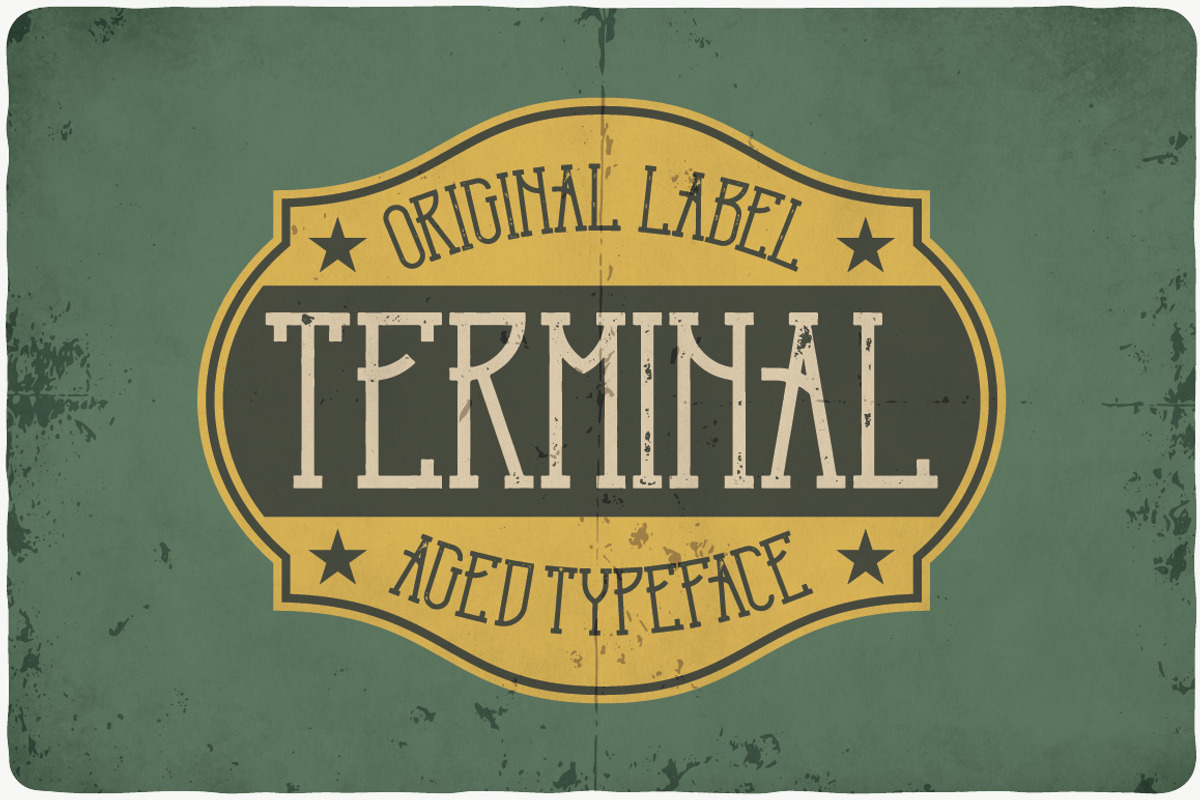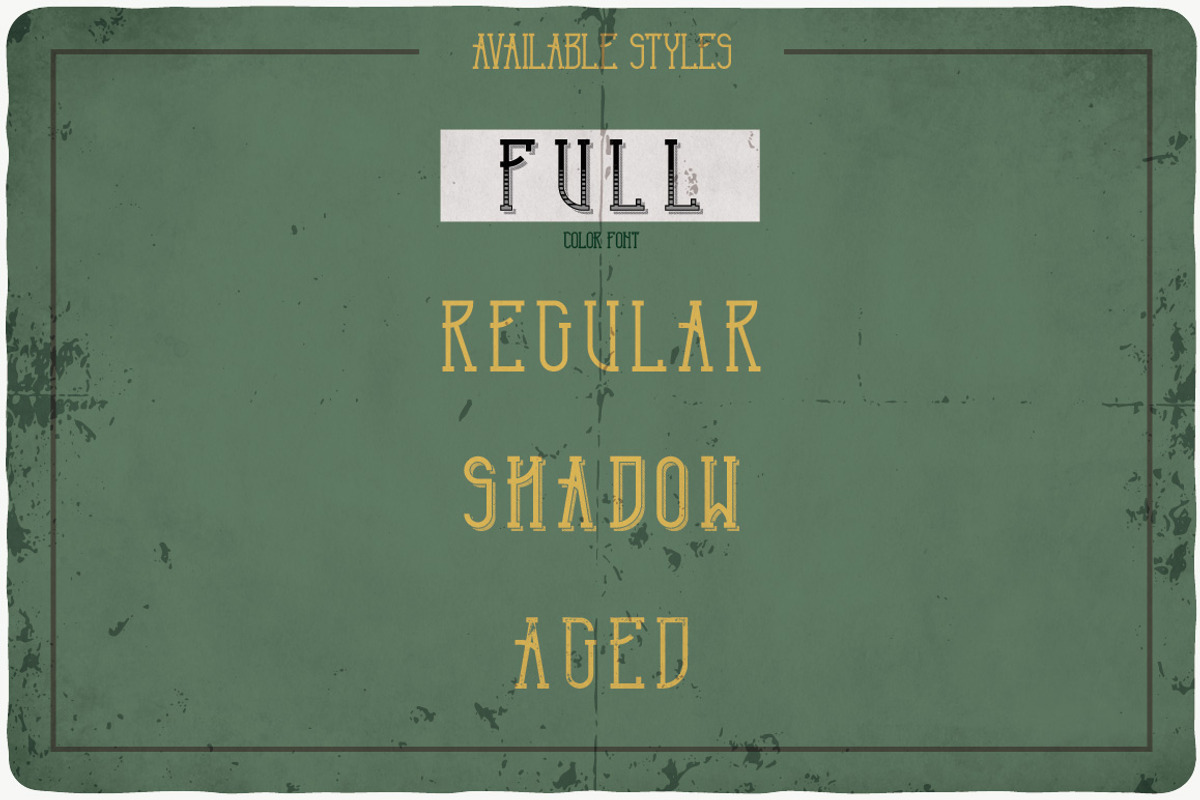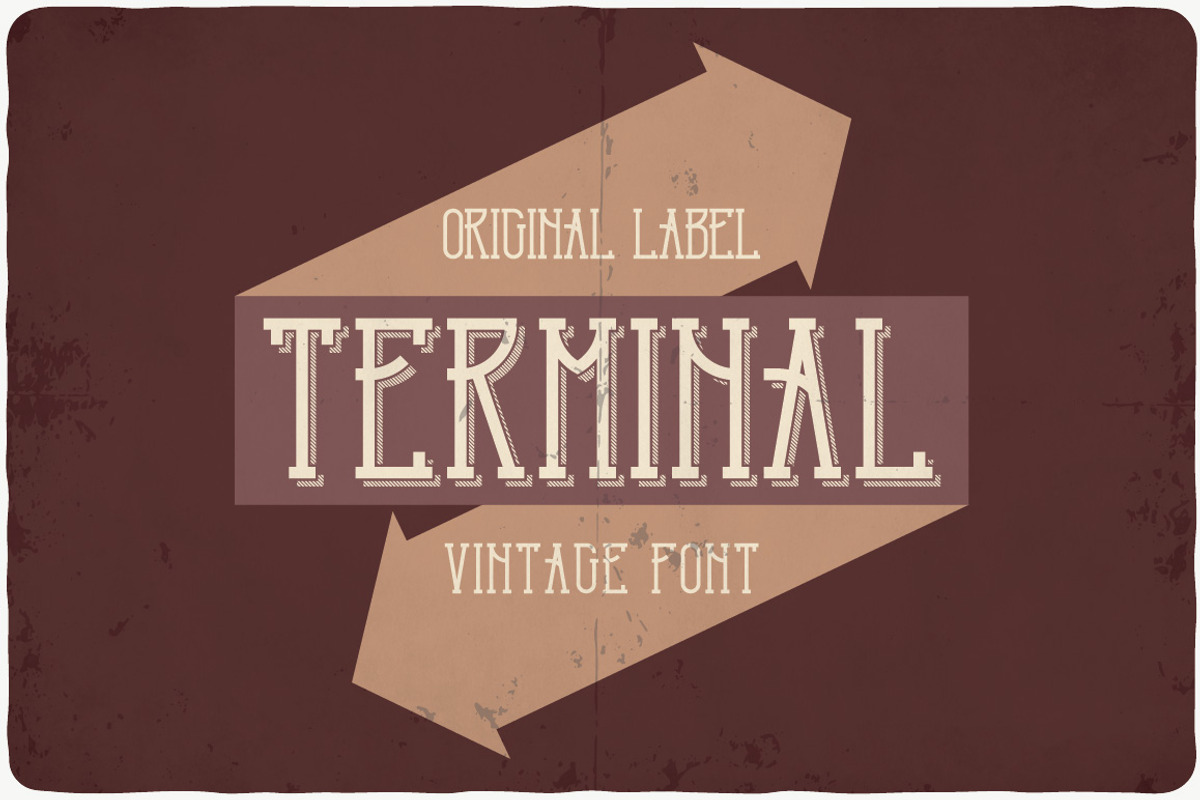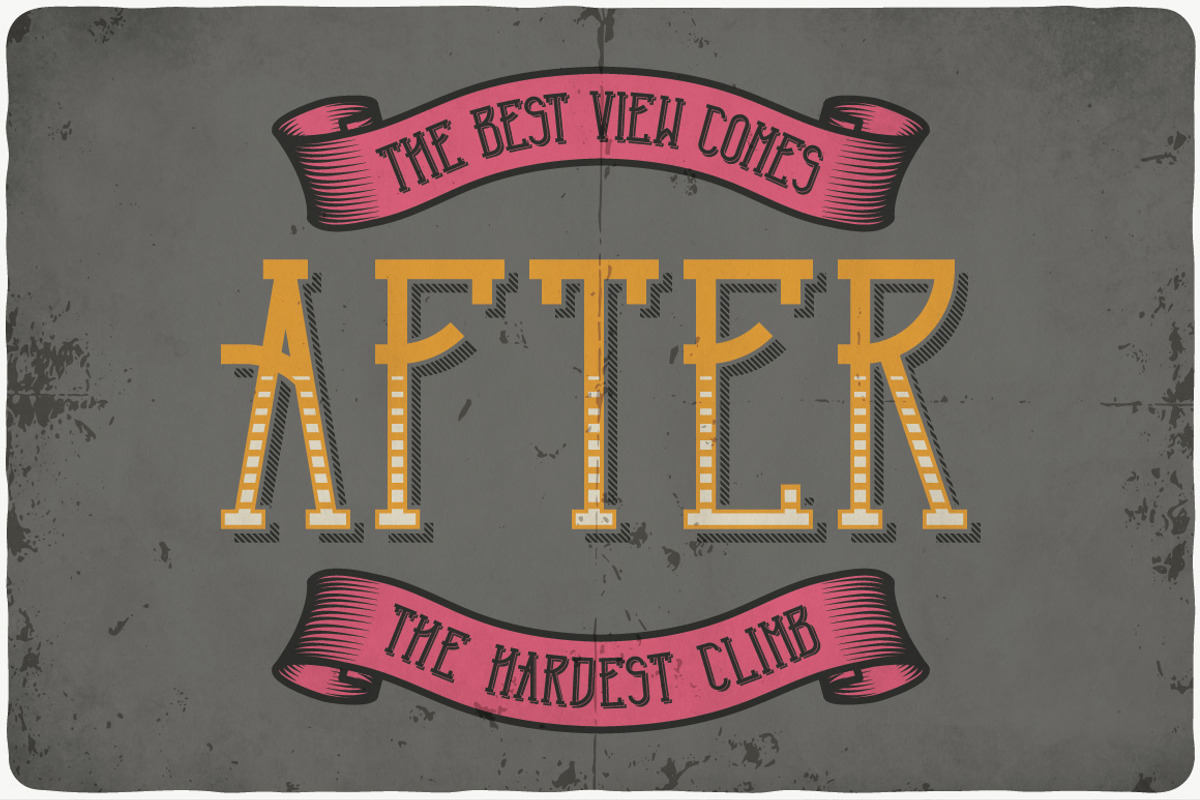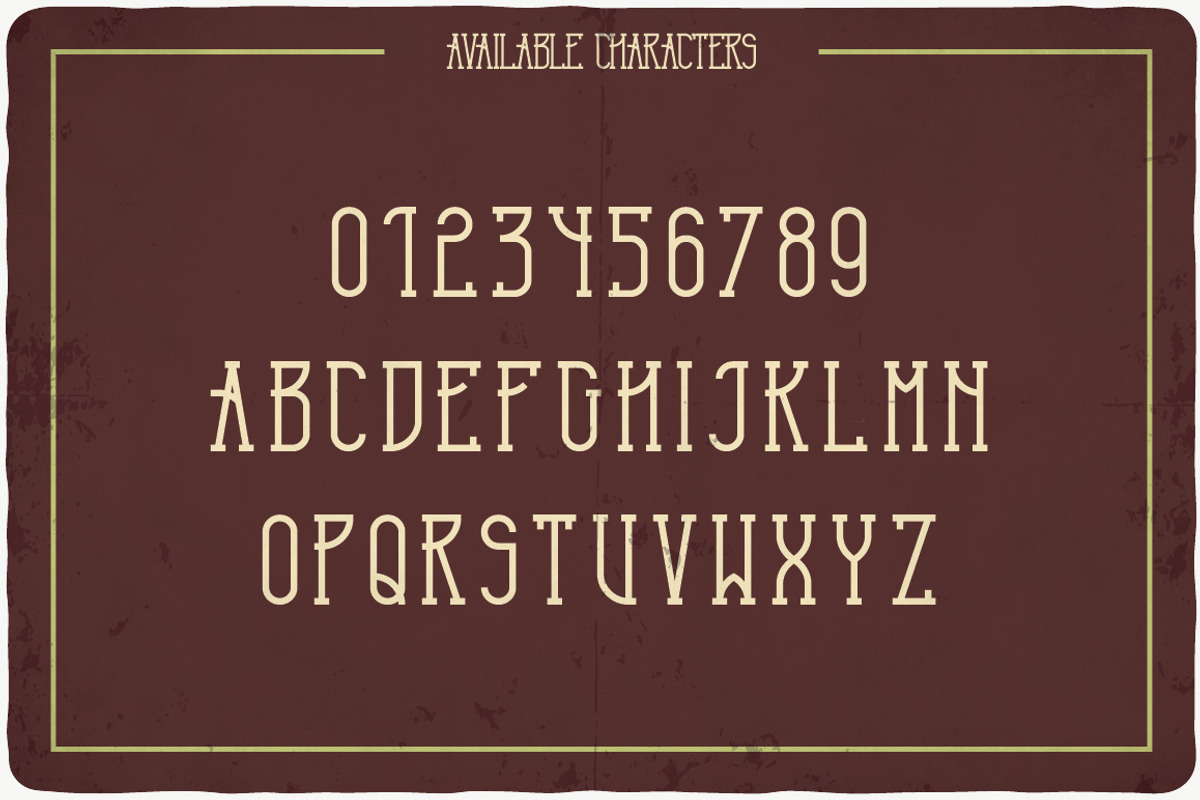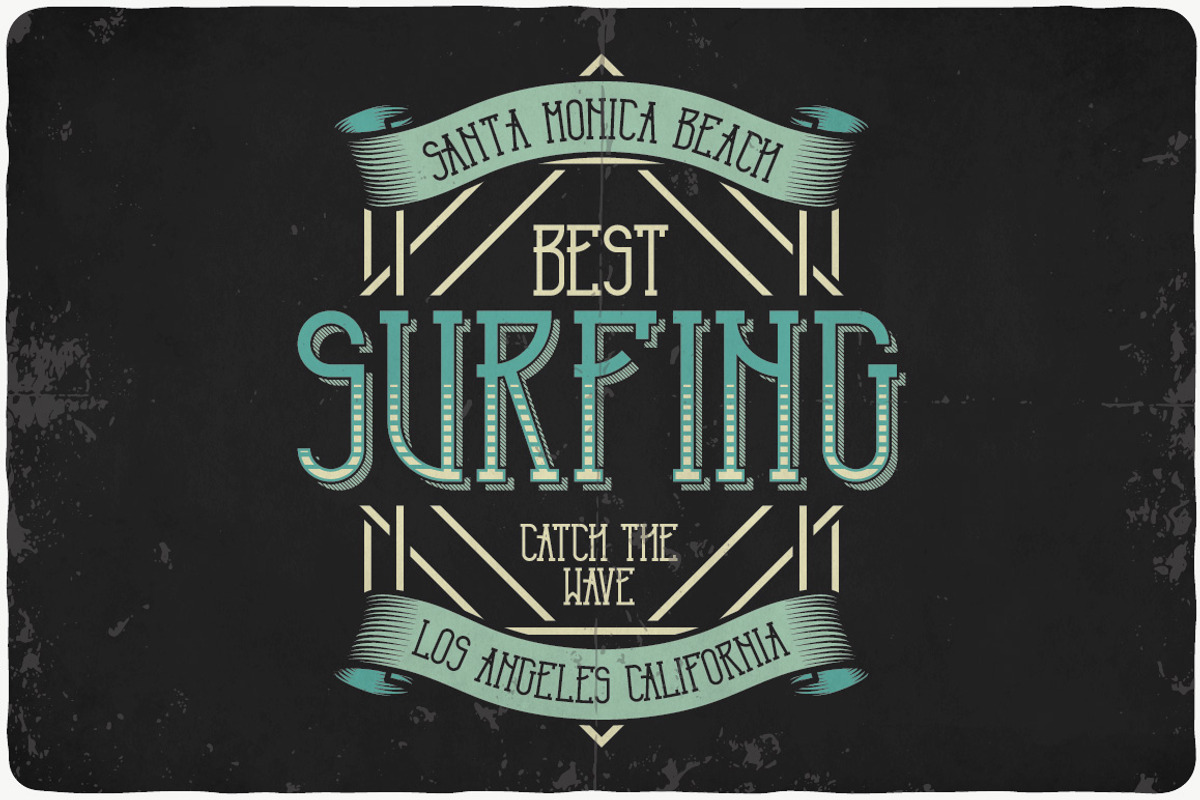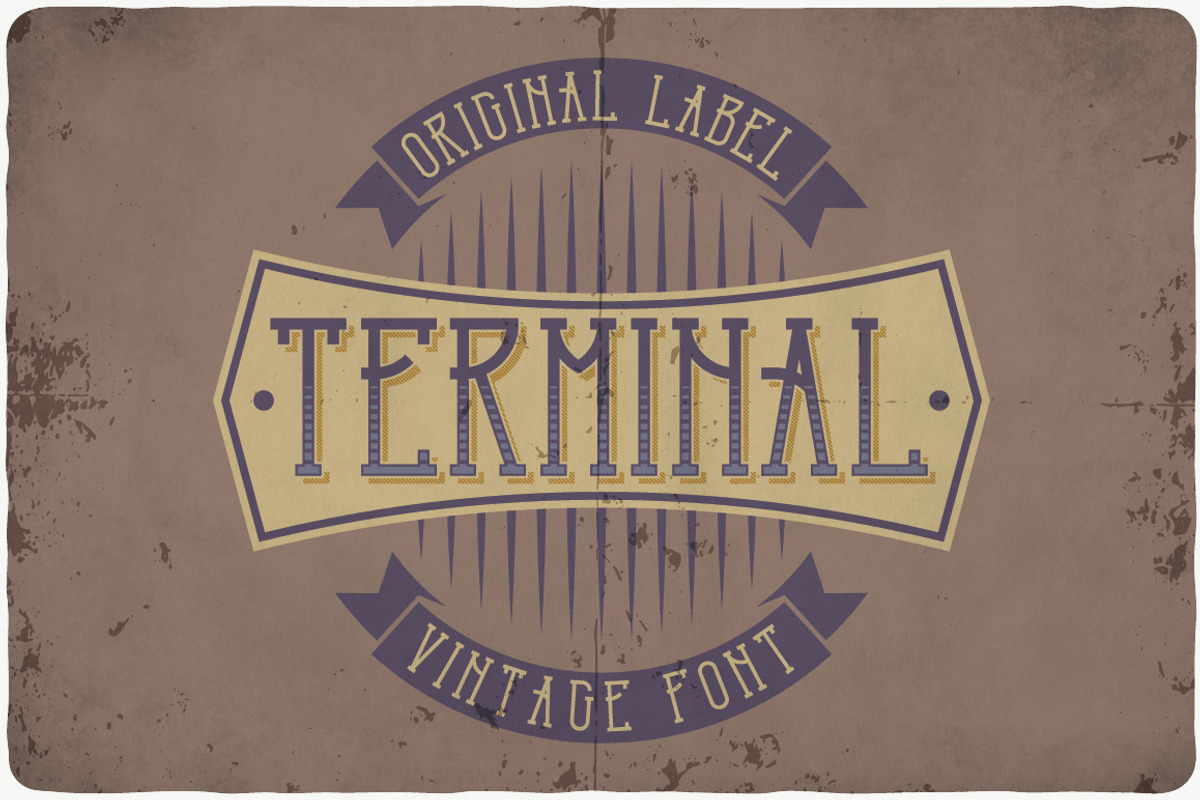
Terminal typeface
Introducing a vintage look label typeface named "Terminal". This typeface includes four styles, for sample look at 5th preview. Typeface will good viewed on any yours design.
Why Terminal typeface is worth a look
Terminal typeface by VozzyStock fits naturally into Branding, posters, packaging, typography.